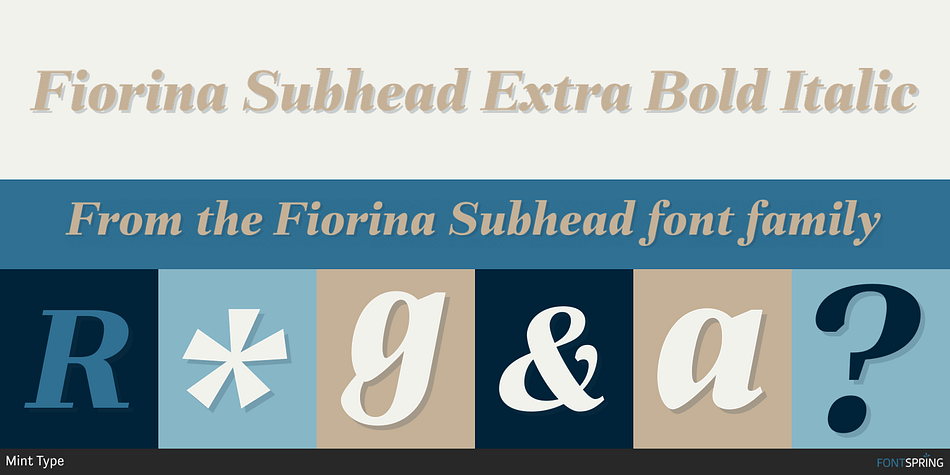
Fiorina Subhead Extra Bold Italic
Designed by Andriy Konstantynov, Fiorina Subhead is a serif font family. This typeface has eighteen styles and was published by Mint Type.
Fiorina is a modern Didone-style serif typeface of 72 fonts. It comes in 4 optical sizes, ranging from Text with moderate contrast to super-contrasted Grande.
Each cut comes in 9 weights with corresponding sophisticated italics. The overall variety of styles makes Fiorina the ultimate magazine typeface.
The glyph set supports all European Latin-based languages, as well as all major languages that use Cyrillic script. The type family also suppors numerous OpenType features, including 6 sets of digits, small caps, fractions, superscript and subscripts, ordinals etc.